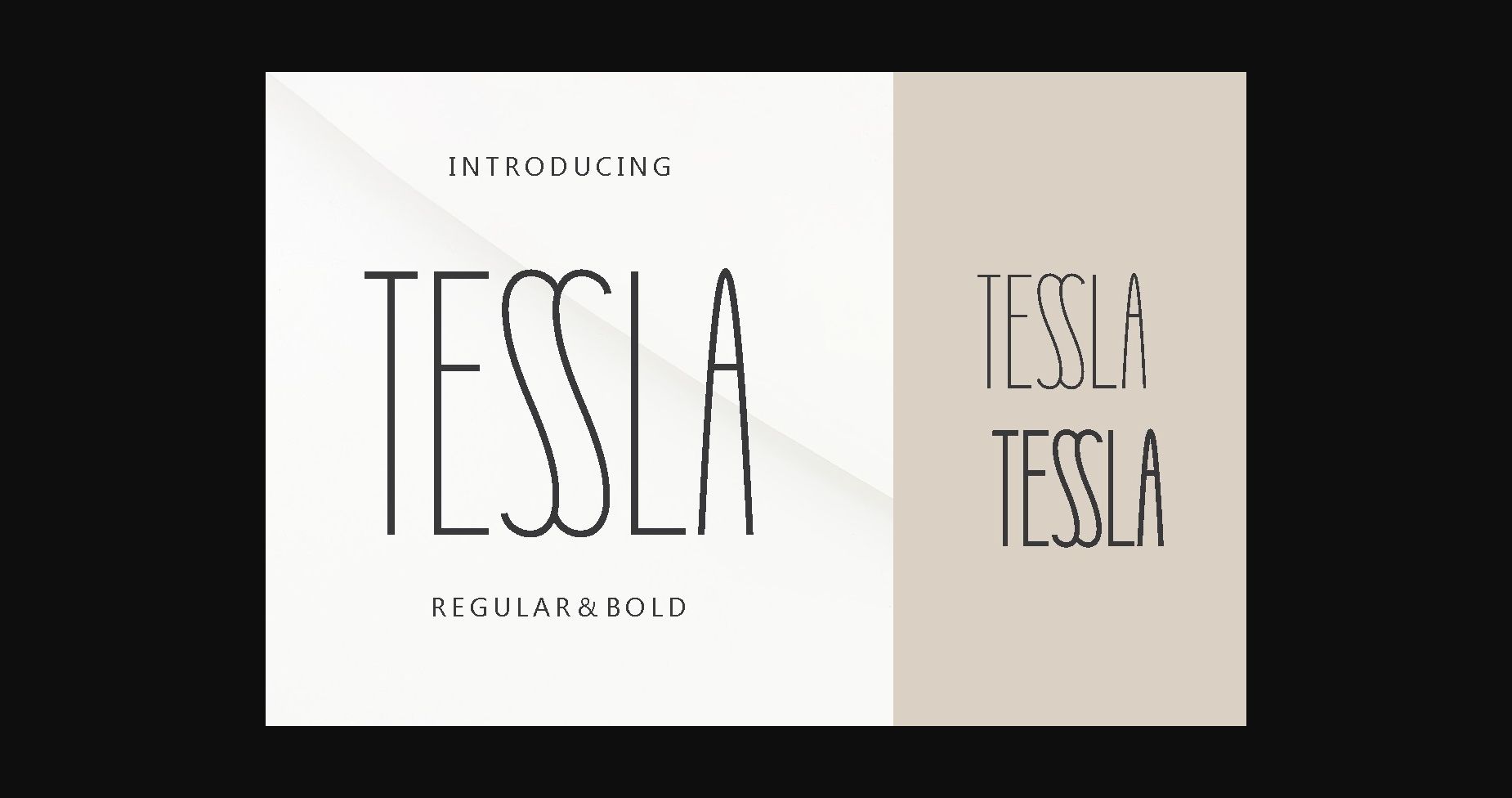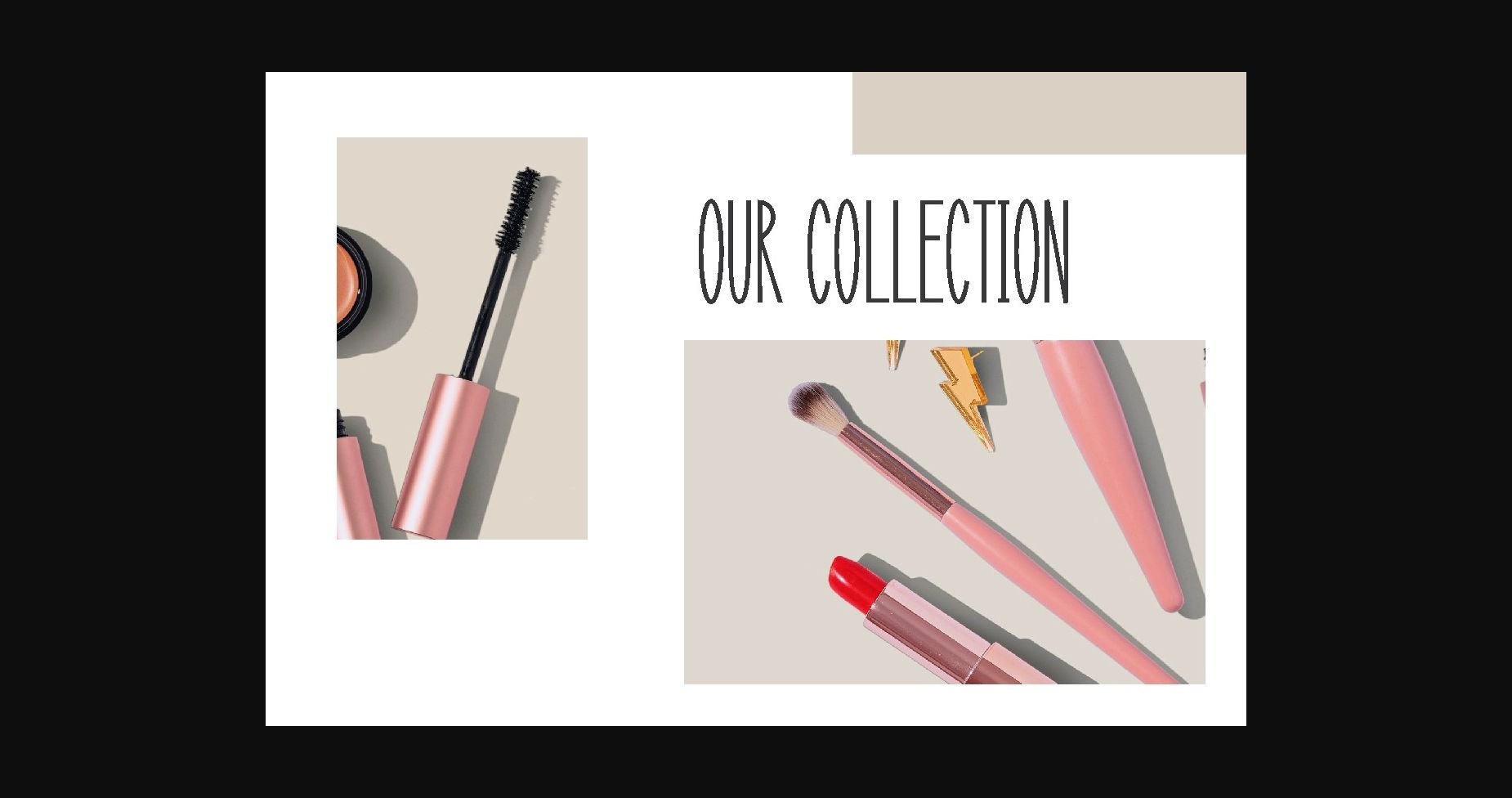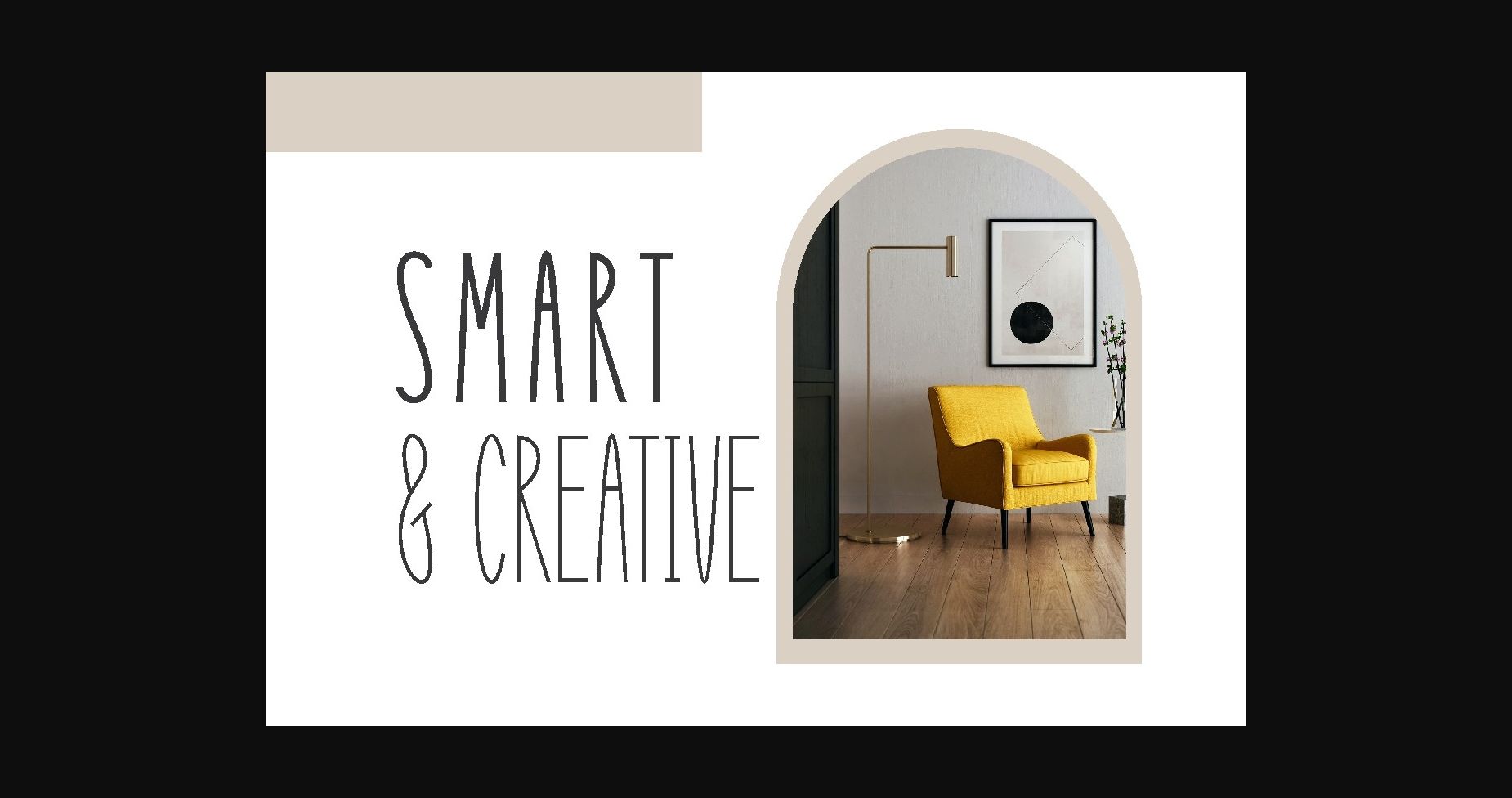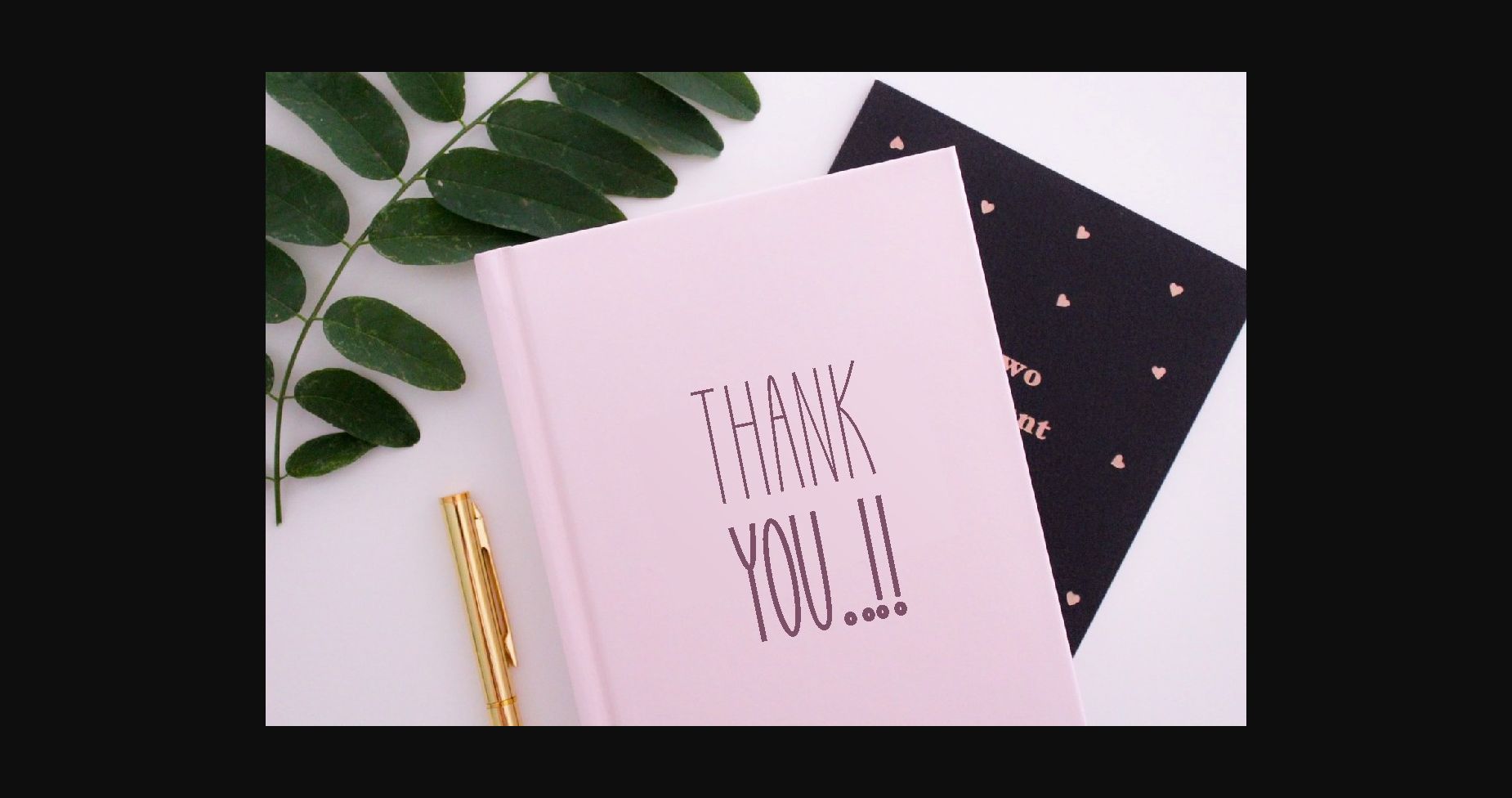
Tessla is a thin lettered simple neat sans serif font. It can easily be matched to an incredibly large set of projects, so add it to your creative ideas and notice how it makes them stand out!